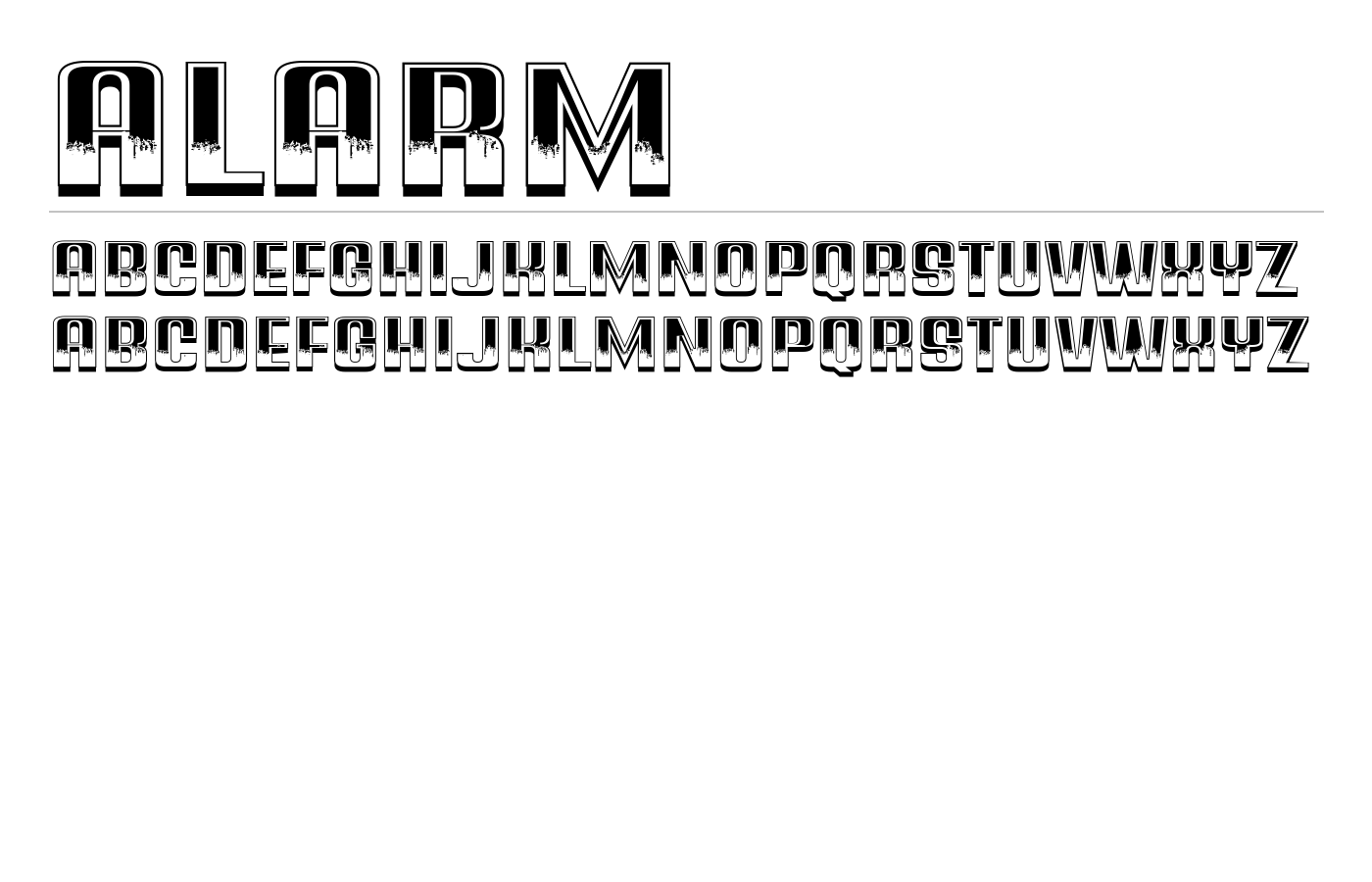
Alarm Font is a bold, condensed sans serif typeface with a striking, vintage industrial feel. Its heavy block letters feature a layered design with a distressed texture and shadow-like outline, giving it a bold, eye-catching presence perfect for headlines, posters, and branding that demands attention and conveys a rugged, urban vibe. This font works especially well where impact and character are key, such as in retro signage or edgy editorial layouts.
Alarm Font
About Alarm Font